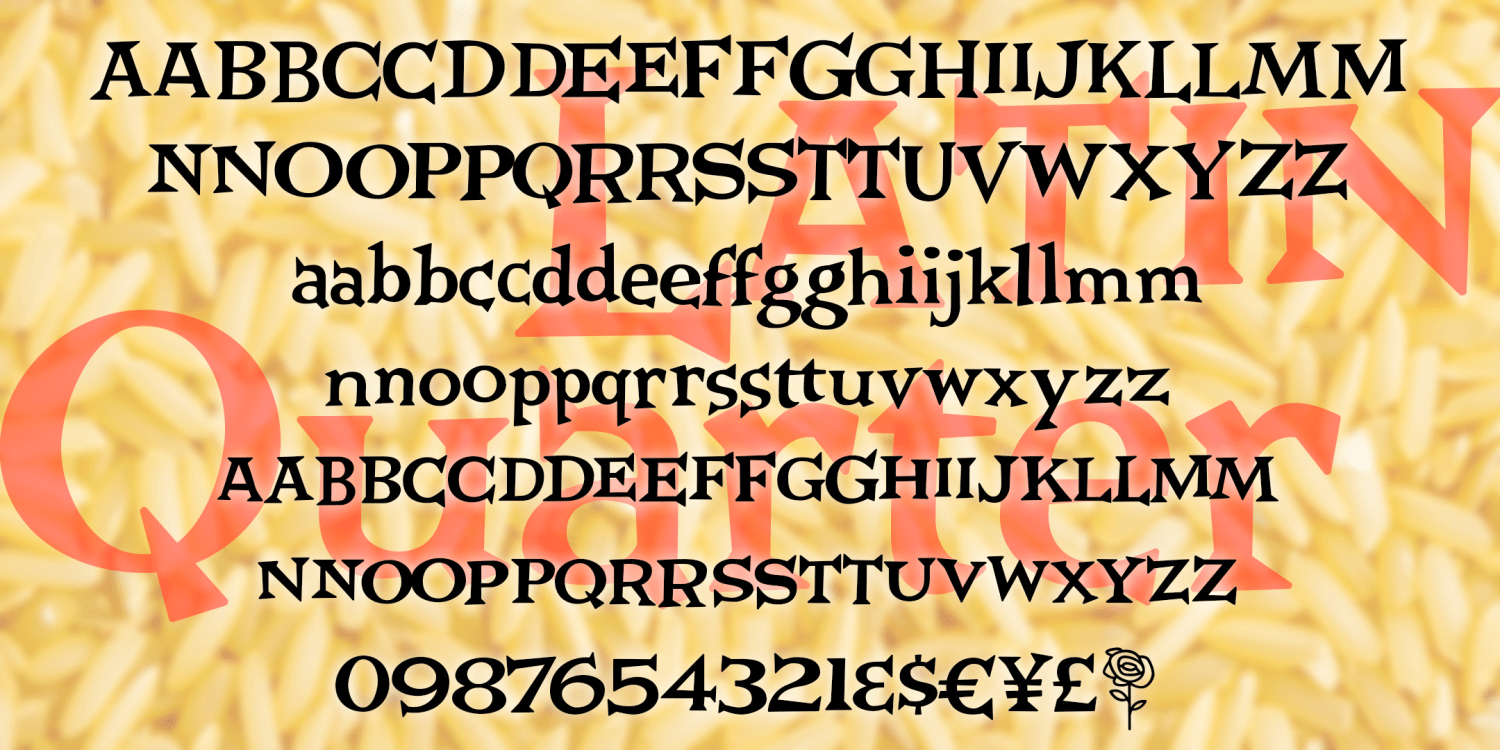
Latin Quarter
LATIN QUARTER is a spiky, bouncy font with triangular serifs and an uneven baseline. There’s an upper and lowercase version and a large and small caps version for greater flexibility, and lots of alternate characters for a more hand-lettered feel.
LATIN QUARTER was inspired by the titles for the 1954 film Carmen Jones. These were the first film credits designed by Saul Bass; the lettering was created by Harold Adler.
Triangular serifs like these are called “latin” because they are like those in carved Roman inscriptions. Paris’s Latin Quarter is named for the language of the university in the neighborhood. Carmen Jones was adapted from a French opera about people in Spain, reimagined as African Americans in the South.
The Latin Quarter font family includes 460 glyphs.